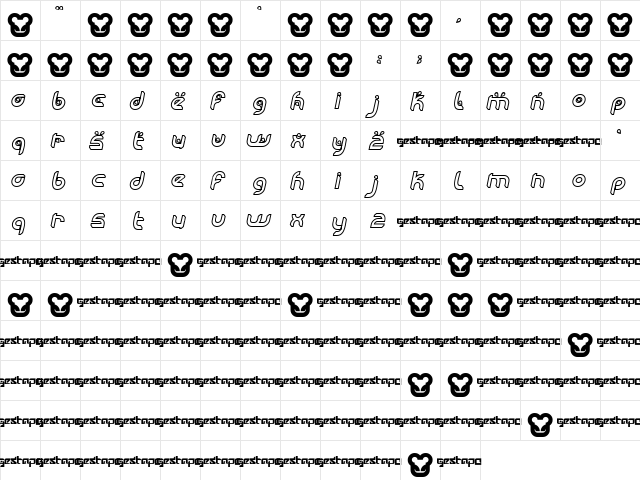
Moogwai ThinOblique
Design Context for Moogwai Typeface
Moogwai takes a measured approach to typography — its balanced proportions and neutral character make it a reliable workhorse for both digital and print work. The slanted form adds forward momentum and visual energy. Its slender proportions lend an understated elegance to any composition.